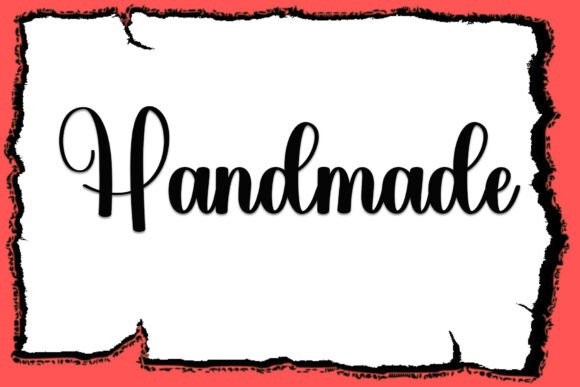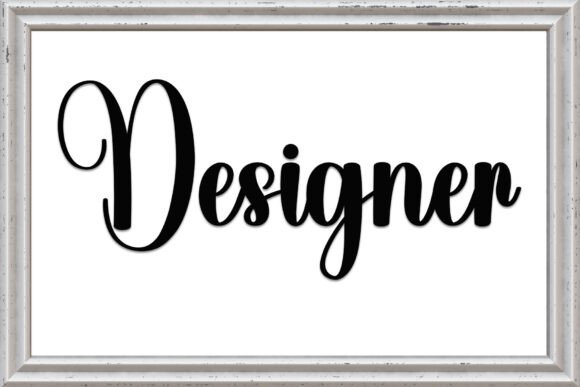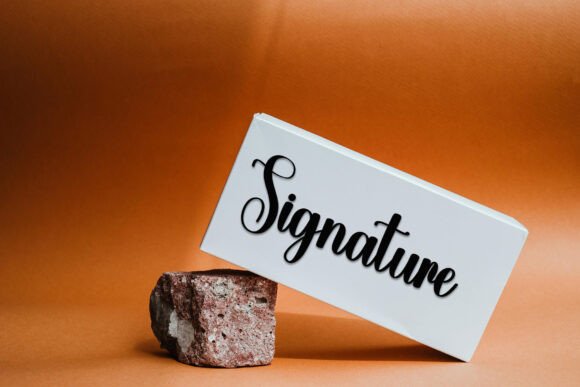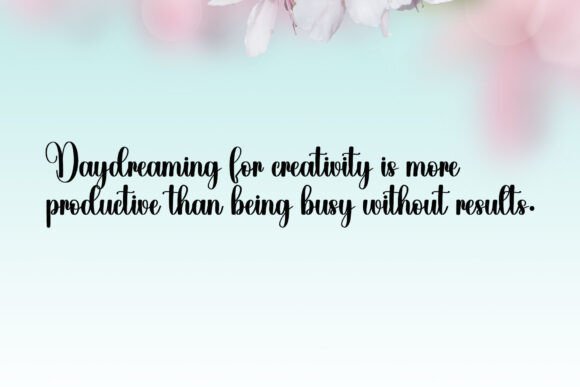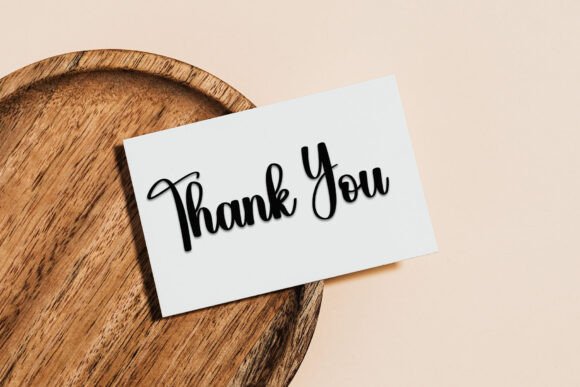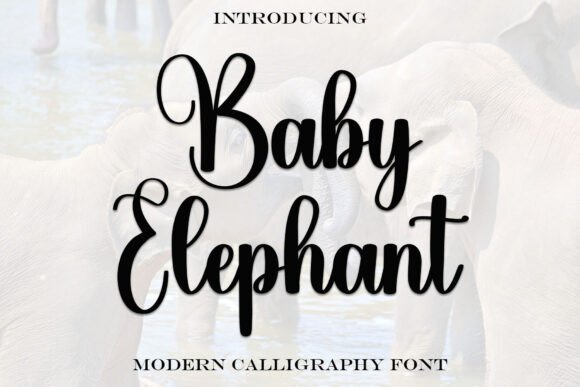
Baby Elephant Font: Elevate Your Designs with Elegance and Sophistication
In the world of typography, fonts play a crucial role in conveying the tone and personality of a design. For designers and crafters seeking to add a touch of elegance and class to their projects, the Baby Elephant Font is an excellent choice. This trendy handwritten font boasts a contemporary atmosphere and impeccable form, drawing inspiration from timeless classic calligraphy.
The Inspiration Behind Baby Elephant Font
Baby Elephant Font is a masterful blend of traditional calligraphy and modern design sensibilities. Its creators aimed to craft a font that would evoke the sophistication and refinement of classic calligraphy while maintaining a fresh and contemporary feel. The result is a font that is both versatile and stylish, suitable for a wide range of design applications.
Key Features of Baby Elephant Font
• Handwritten with a Personal Touch: Baby Elephant Font is a handwritten font that exudes warmth and personality. Its unique, cursive style is perfect for adding a human touch to your designs.
• Contemporary Atmosphere: Despite its classic inspiration, Baby Elephant Font has a distinctly modern feel. Its clean lines and elegant curves make it an excellent choice for designers seeking to create contemporary designs.
• Impeccable Form: The font’s impeccable form ensures that it remains legible and visually appealing, even at smaller sizes. This makes it perfect for use in a variety of design projects, from logos and branding materials to digital and print publications.
• Elegance and Class: Baby Elephant Font is designed to add a touch of sophistication and elegance to any design project. Its classic inspiration and modern execution make it an excellent choice for designers seeking to create high-end designs.
Uses of Baby Elephant Font
Baby Elephant Font is an incredibly versatile font that can be used in a wide range of design applications. Some of the most popular uses for this font include:
• Logos and Branding Materials: The font’s elegant, cursive style makes it perfect for use in logos and branding materials, such as business cards, letterheads, and packaging.
• Digital and Print Publications: Baby Elephant Font is well-suited for use in digital and print publications, including magazines, newspapers, and books.
• Wedding and Event Designs: The font’s sophisticated, elegant style makes it an excellent choice for wedding and event designs, such as invitations, programs, and decorations.
• Signage and Display Graphics: Baby Elephant Font can also be used in signage and display graphics, such as billboards, posters, and banners.
Tips for Using Baby Elephant Font
To get the most out of Baby Elephant Font, here are a few tips to keep in mind:
• Use it Sparingly: While Baby Elephant Font is elegant and sophisticated, it can be overwhelming if used excessively. Use it sparingly to add emphasis and create visual interest.
• Pair it with Other Fonts: Baby Elephant Font pairs well with a variety of other fonts, including sans-serif fonts and serif fonts. Experiment with different pairings to find the one that works best for your design.
• Adjust the Size and Color: To create visual interest and add emphasis, adjust the size and color of Baby Elephant Font. This can help draw attention to specific elements of your design.
Baby Elephant Font is a trendy handwritten font that offers a unique blend of classic inspiration and modern design sensibilities. Its elegant, cursive style and impeccable form make it an excellent choice for designers and crafters seeking to add a touch of sophistication and elegance to their projects. With its versatility and wide range of uses, Baby Elephant Font is sure to become a staple in any designer’s toolkit.